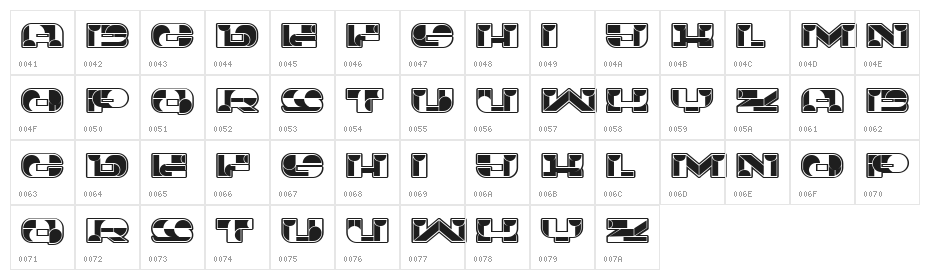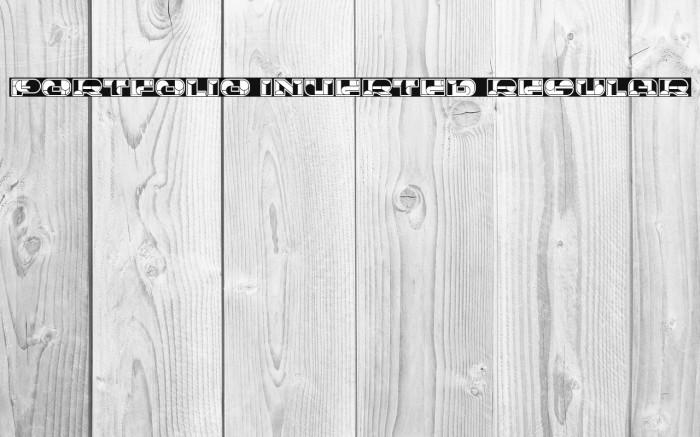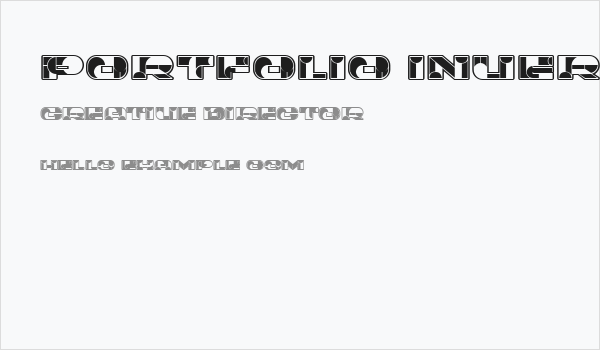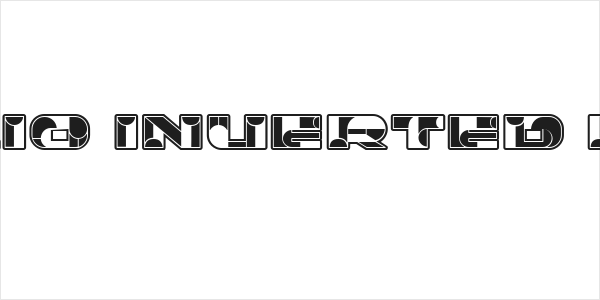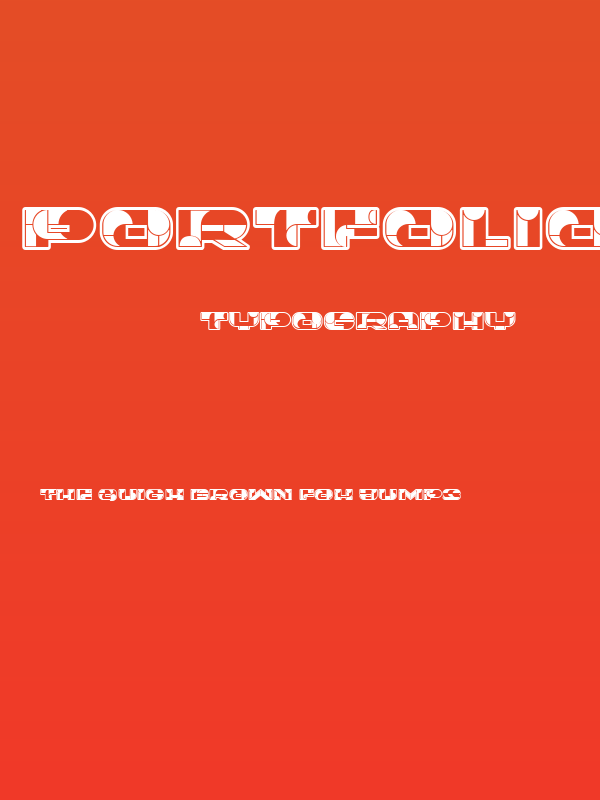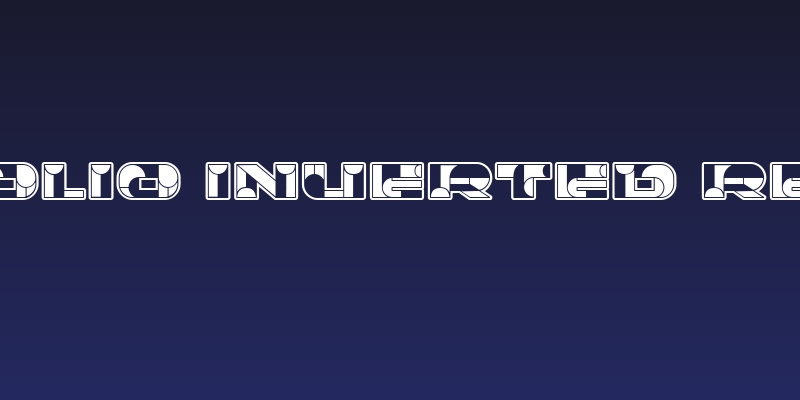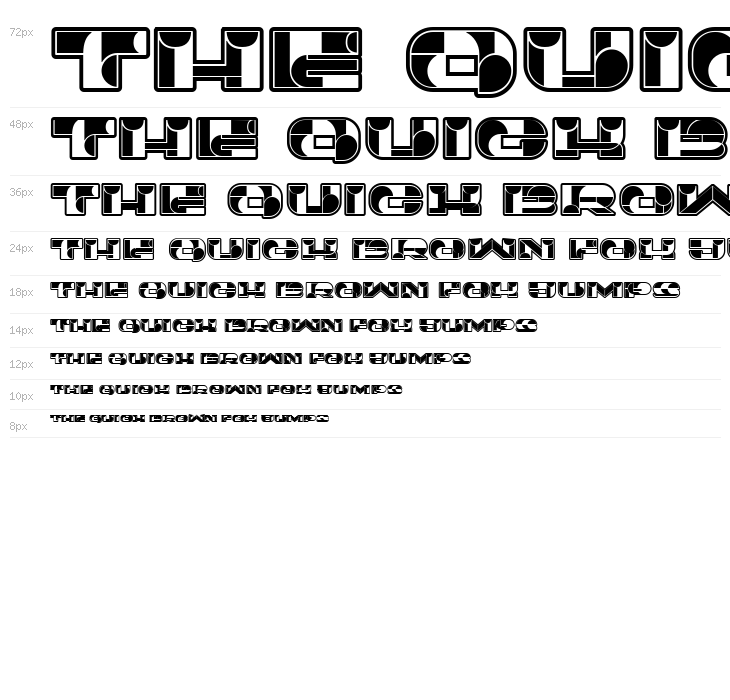
Portfolio Inverted Regular Font
Portfolio Inverted Regular Description
This font features a bold and striking design with a unique inverted style. The characters are constructed with a combination of solid and outlined segments, creating a dynamic and eye-catching appearance. The geometric shapes and sharp angles give it a modern and futuristic feel, while the bold weight ensures strong visibility. The font's distinct style makes it suitable for creative and impactful designs, where a statement is needed. Its structured form and high contrast between the filled and outlined areas add to its visual appeal.
Proposed ProjectsIdeal for branding, posters, and any design requiring a bold, modern statement.